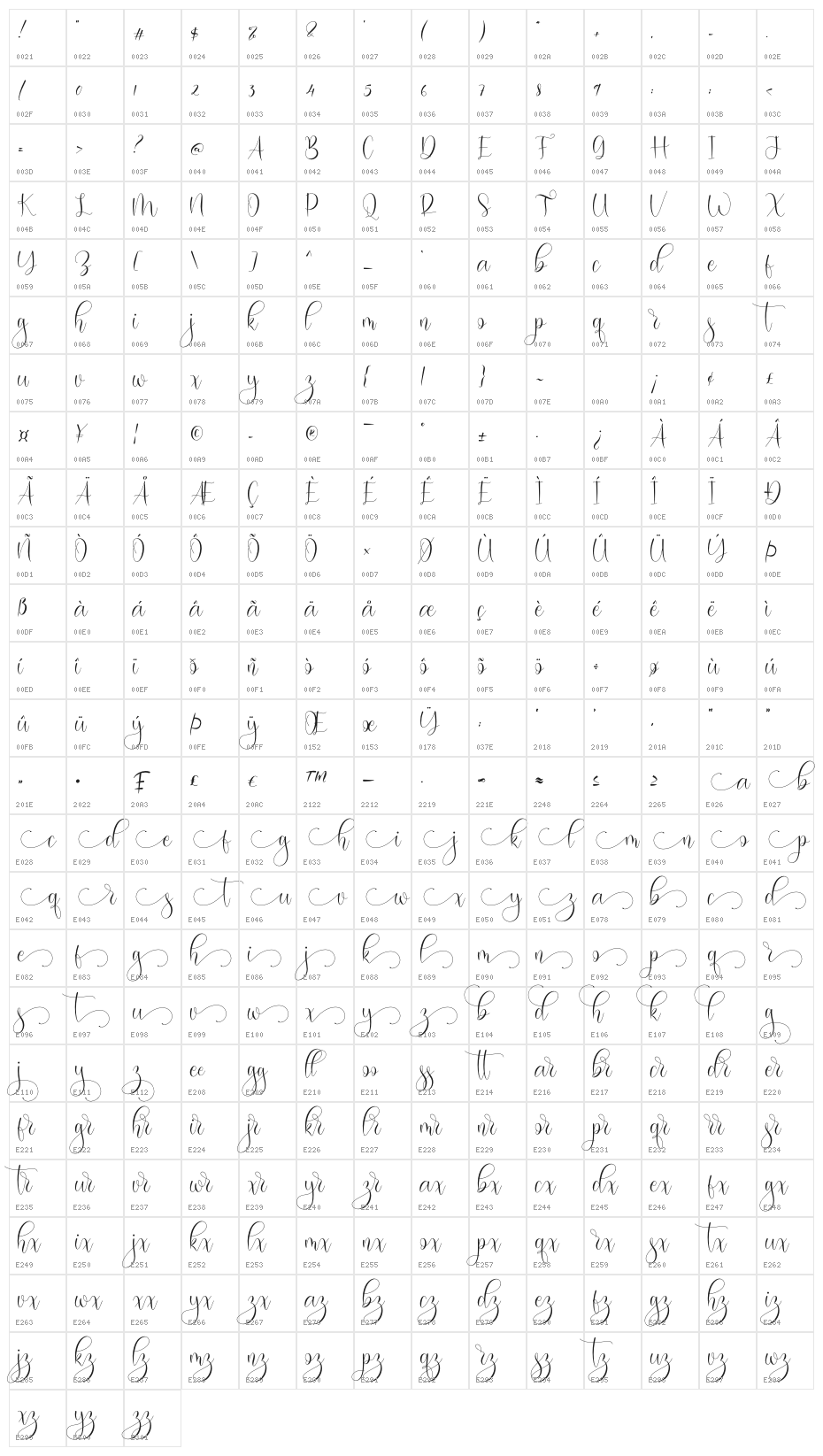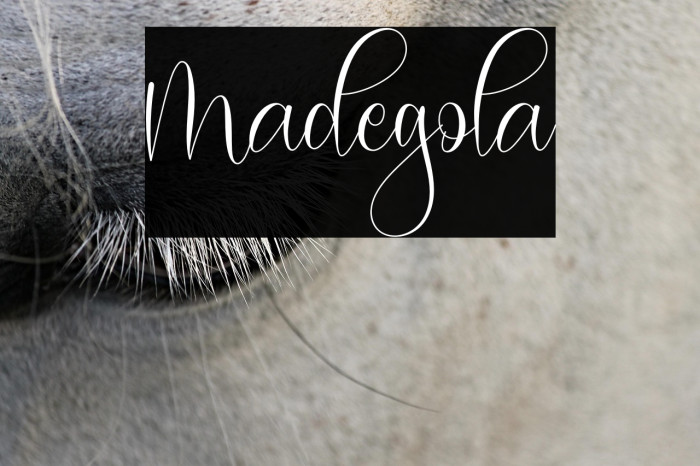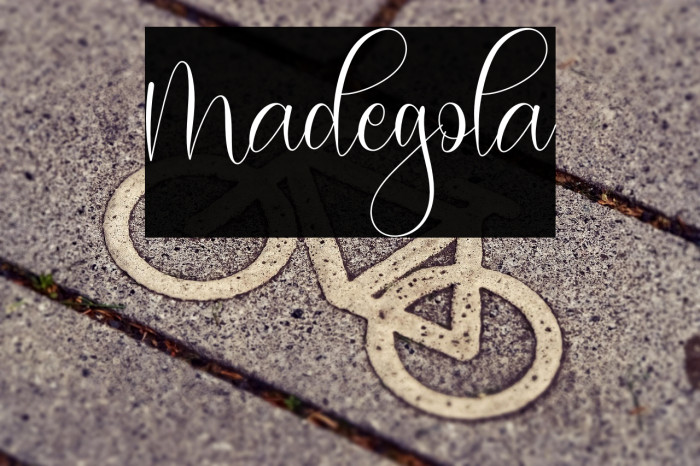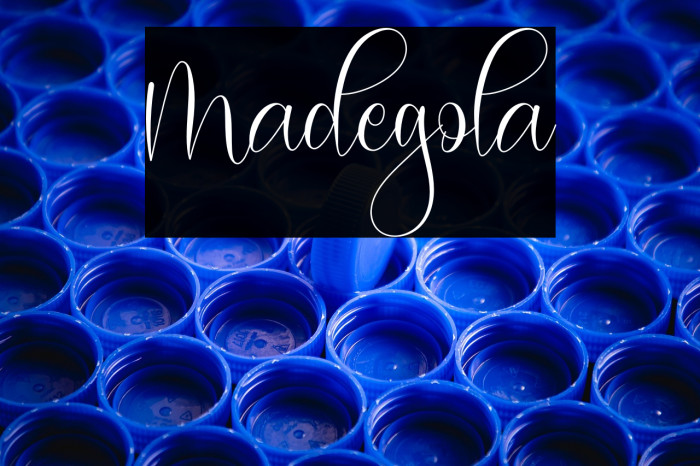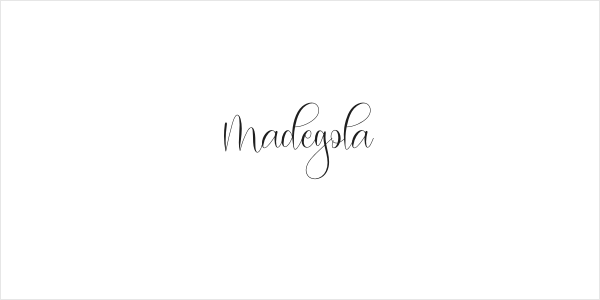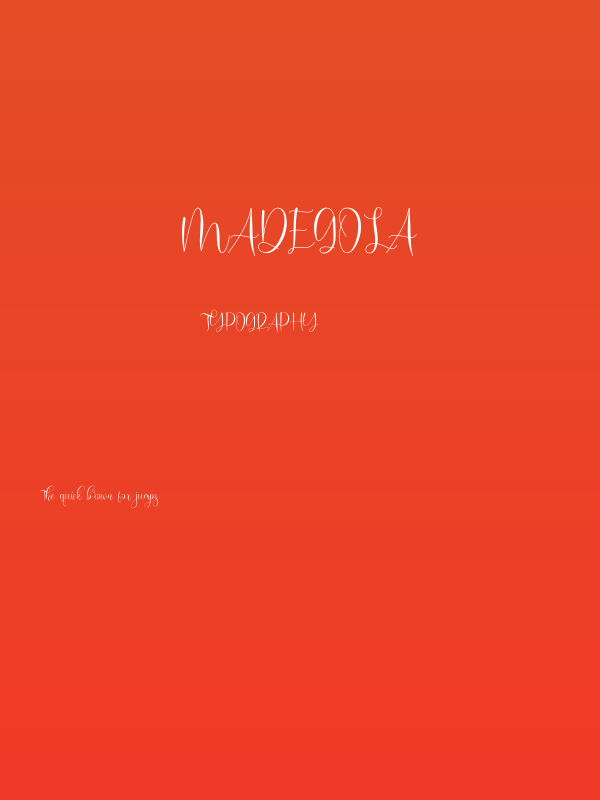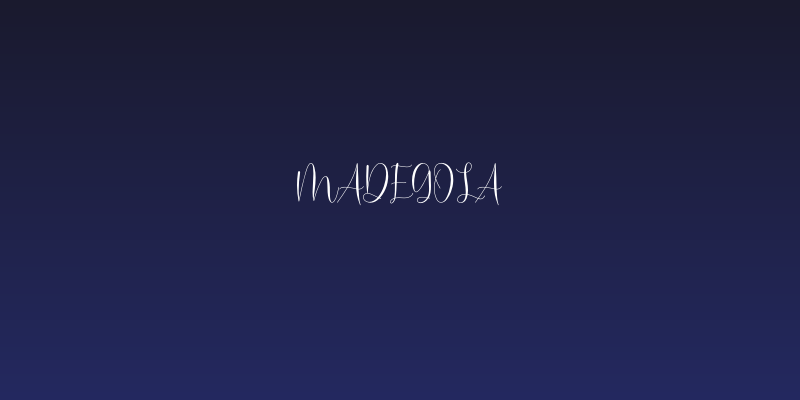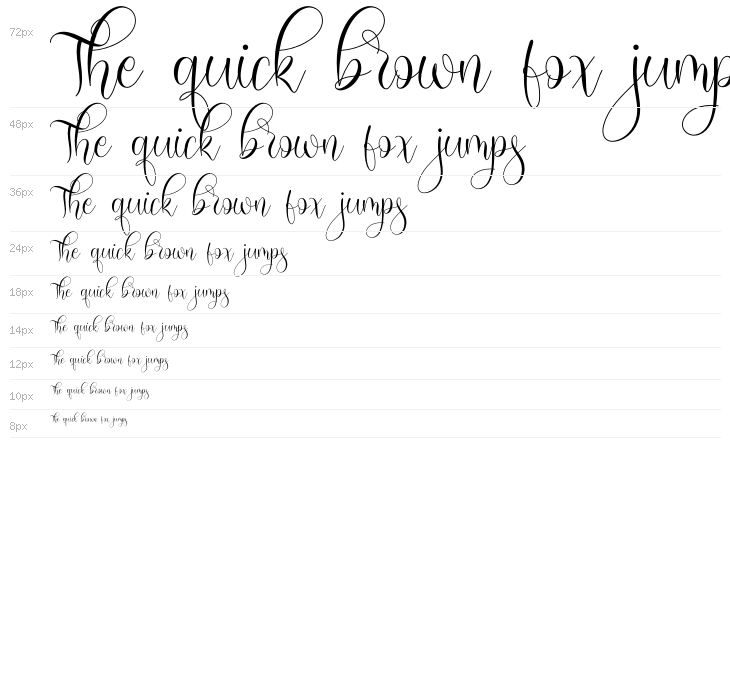
Madegola Font
Madegola Description
This elegant script font features a flowing, cursive style with intricate loops and swashes that give it a sophisticated and artistic appearance. The uppercase letters are tall and graceful, with sweeping ascenders and descenders that add a touch of drama. The lowercase letters maintain a consistent flow, enhancing readability while retaining the decorative flair. The numerals are styled to match the overall aesthetic, with a slight slant and similar embellishments. Special characters are thoughtfully designed to complement the letterforms, making this font versatile for various creative applications.
| Use Case | Logos, Invitations, Decorative text |
| Proposed Projects | Ideal for wedding invitations, branding, greeting cards, and elegant packaging designs. |